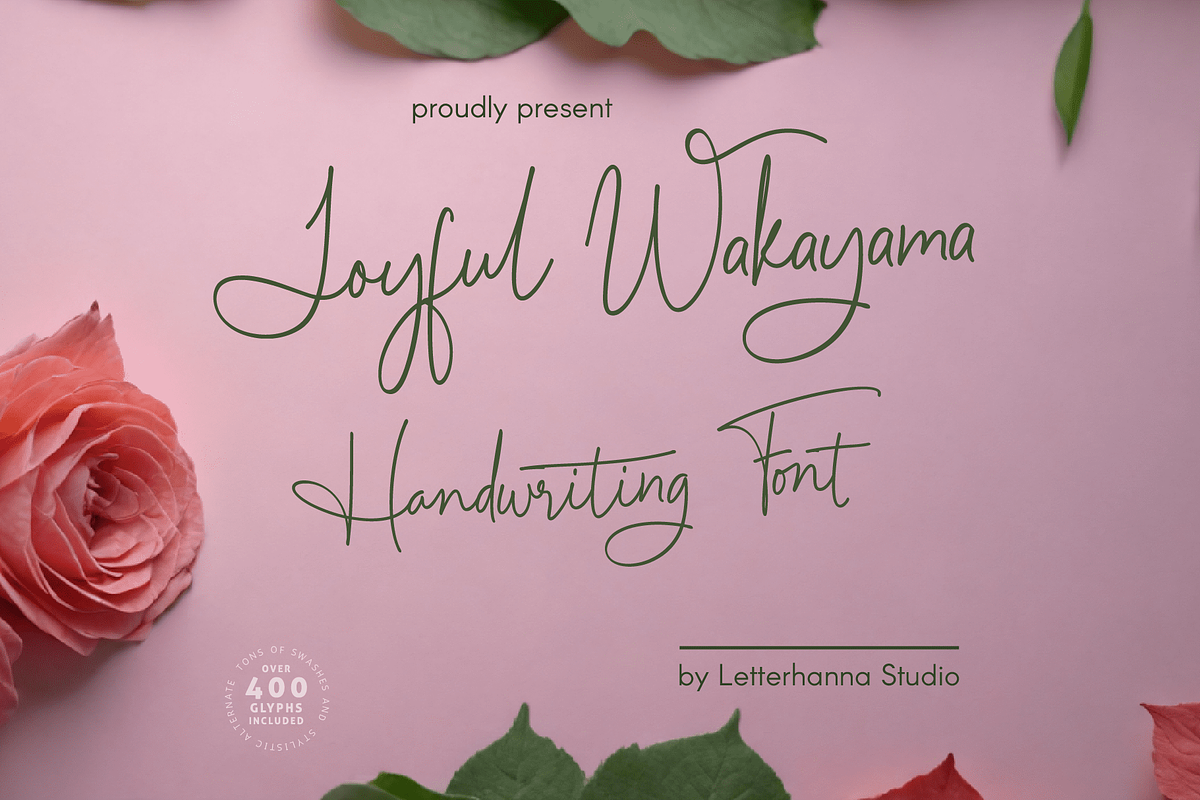
Joyful Wakayama Font Free Download
Joyful Wakayama Font Free Download is a playful and artistic script font that radiates creativity and positive energy. With its lively brush strokes and dynamic letterforms, this typeface is perfect for projects that need a fun, friendly, and handcrafted vibe. Ideal for greeting cards, branding, posters, and social media content, Joyful Wakayama brings personality to every word.
Created with expressive motion and bold character, Joyful Wakayama Font Free Download captures a casual yet stylish aesthetic. Its organic flow makes it a great choice for adding a human touch to digital and print designs alike.
Whether you're building a quirky brand, designing eye-catching quotes, or giving your packaging an artisanal feel, Joyful Wakayama offers both charm and flexibility. It pairs beautifully with sans-serif fonts and works well as a standout headline or logo.